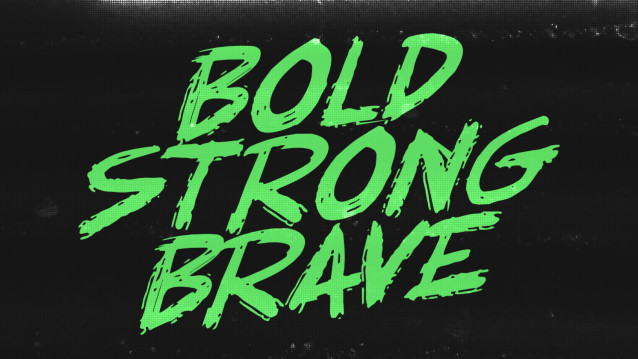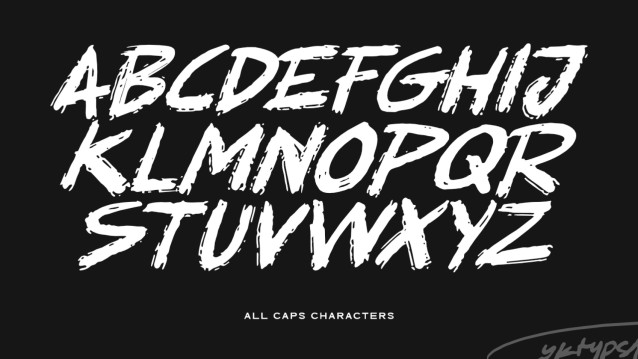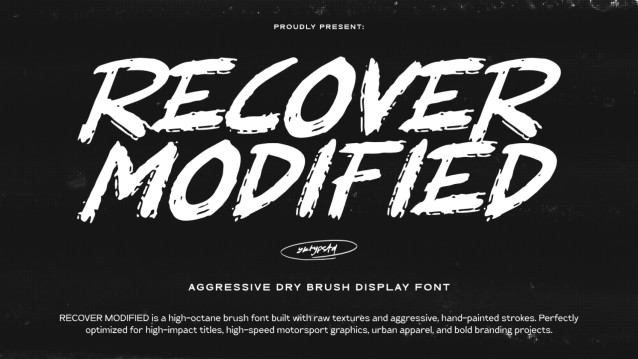
Recover Modified Font
RECOVER MODIFIED is a high-octane brush font built with raw textures and aggressive, hand-painted strokes. Seamlessly blending the rebellious spirit of street graffiti with the high-adrenaline world of motorsport, this display font is engineered to deliver maximum visual impact.
Every single character features authentic, gritty dry-brush details that remain sharp and powerful. Designed as an All-Caps font (where lowercase keys trigger uppercase glyphs), it ensures seamless layout creation for designers. It is the ultimate choice for high-speed motorsport graphics, racing decals, bold urban streetwear apparel, hardcore event posters, and fearless branding projects.